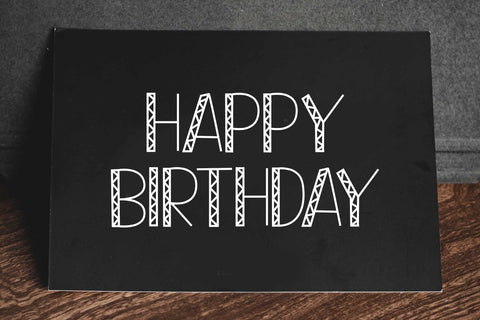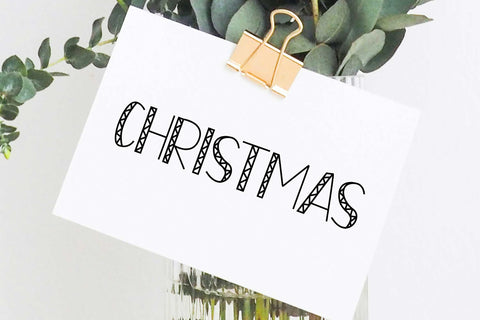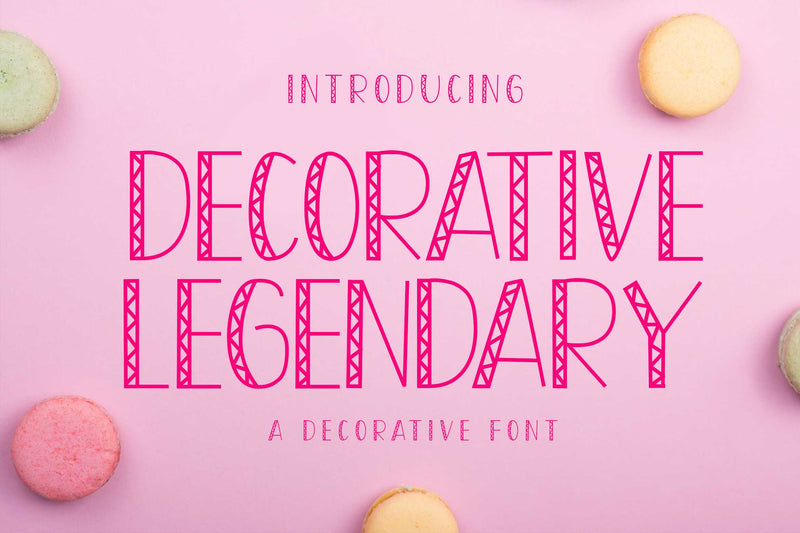
Decorative Legendary
Decorative Legendary is a decorative font that is as well as romantic. This font is a great choice for your favorite font collection. Add this font to your design projects to really stand out, this versatile decorative font has a wide range of applications from Valentine crafts to wedding or love designs.